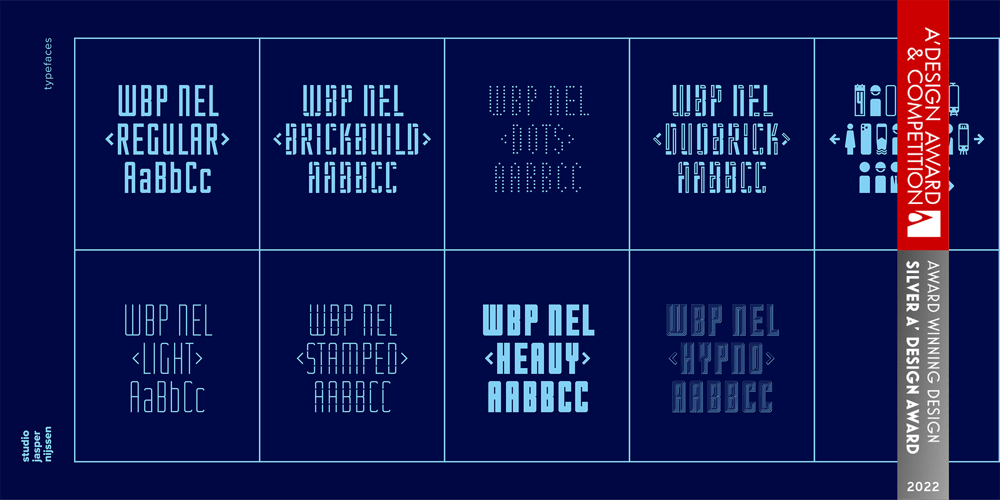
WBP Nel
WBP Nel font
WBP Nel Font Family was designed by Jasper Nijssen and published by Studio Jasper Nijssen. WBP Nel contains 9 styles and family package options. This typeface family is developed with the designer in mind. WBP Nel is a narrow sans serif with lots of options. The Regular consists of UPPERCASE and lowercase glyphs, beautiful kerning and a nice ampersand. All other styles are just uppercase and made to give your designs some extra flair. The Brickbuild is a playful, stencil version and the Dots (freebie) is a dotted typeface. The Light and Heavy version complement the Regular beautifully. These two also come with a display variant, the WBP Nel Stamped and WBP Nel Hypno. So you get lots of options to mix and match while designing awesome prints, posters, logo’s, websites or identities.